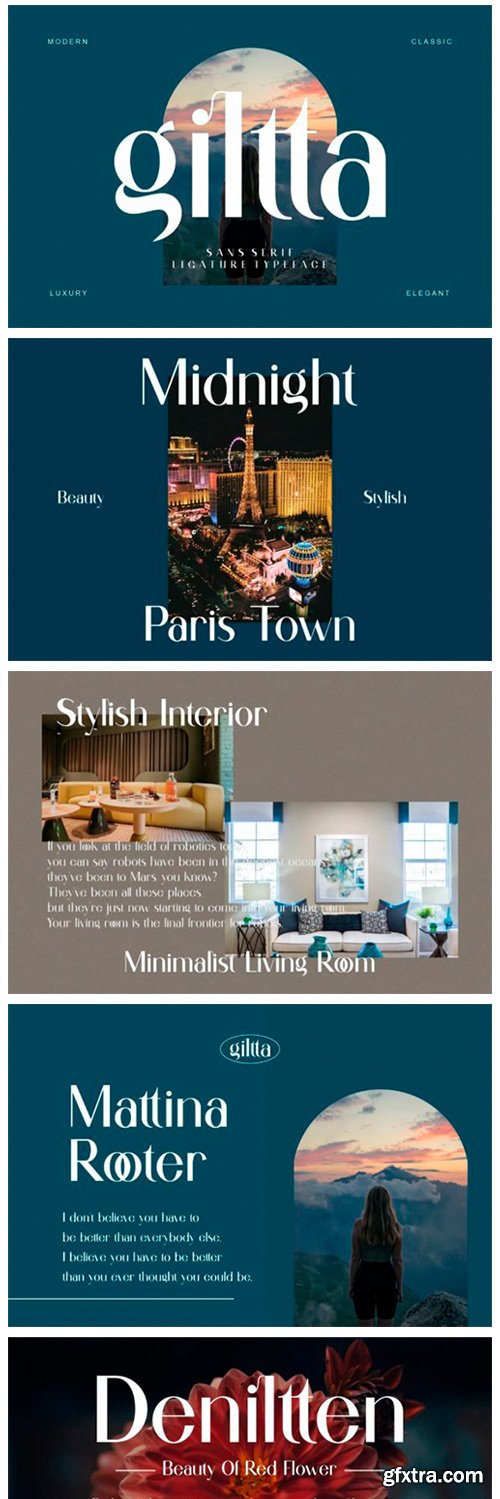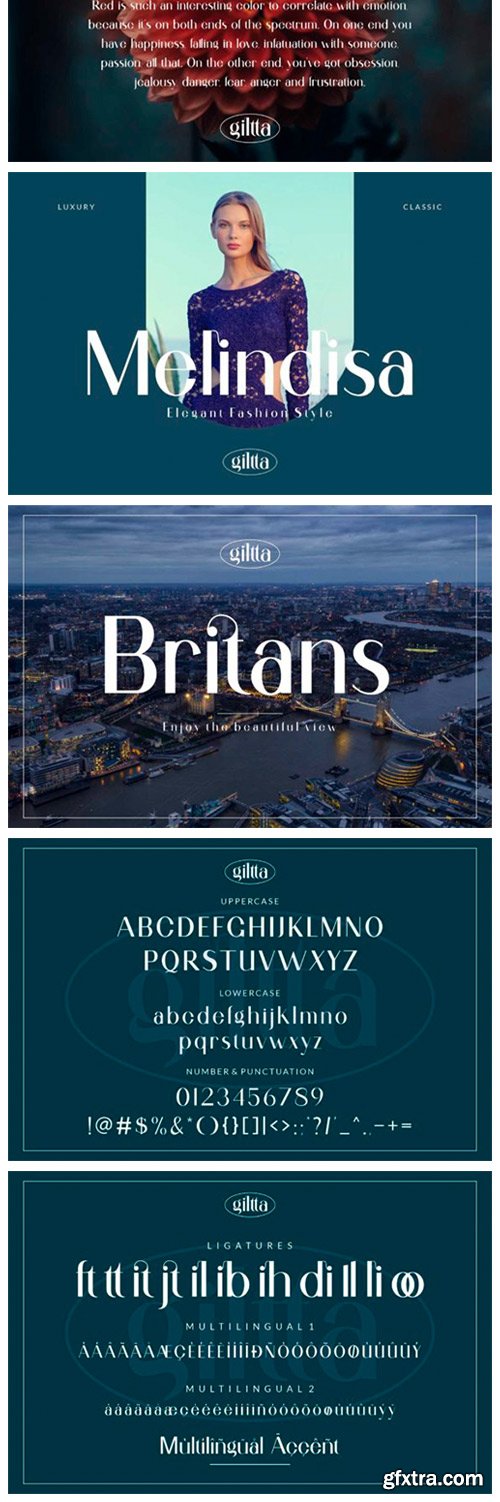
Giltta Font
Giltta is an authentic and cool sans serif font. It can easily be matched to an incredibly large set of formal or informal projects, so add it to your creative ideas and notice how it makes them stand out!
Giltta Font
Giltta is an authentic and cool sans serif font. It can easily be matched to an incredibly large set of formal or informal projects, so add it to your creative ideas and notice how it makes them stand out!